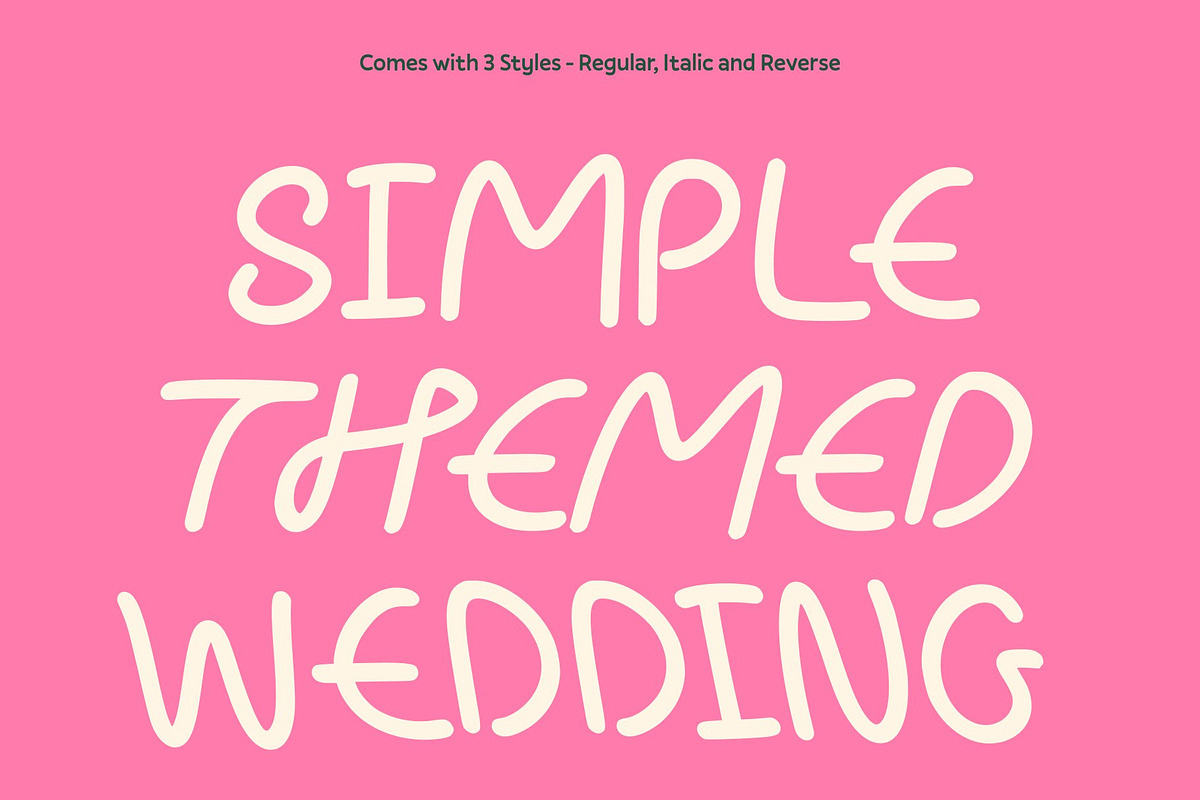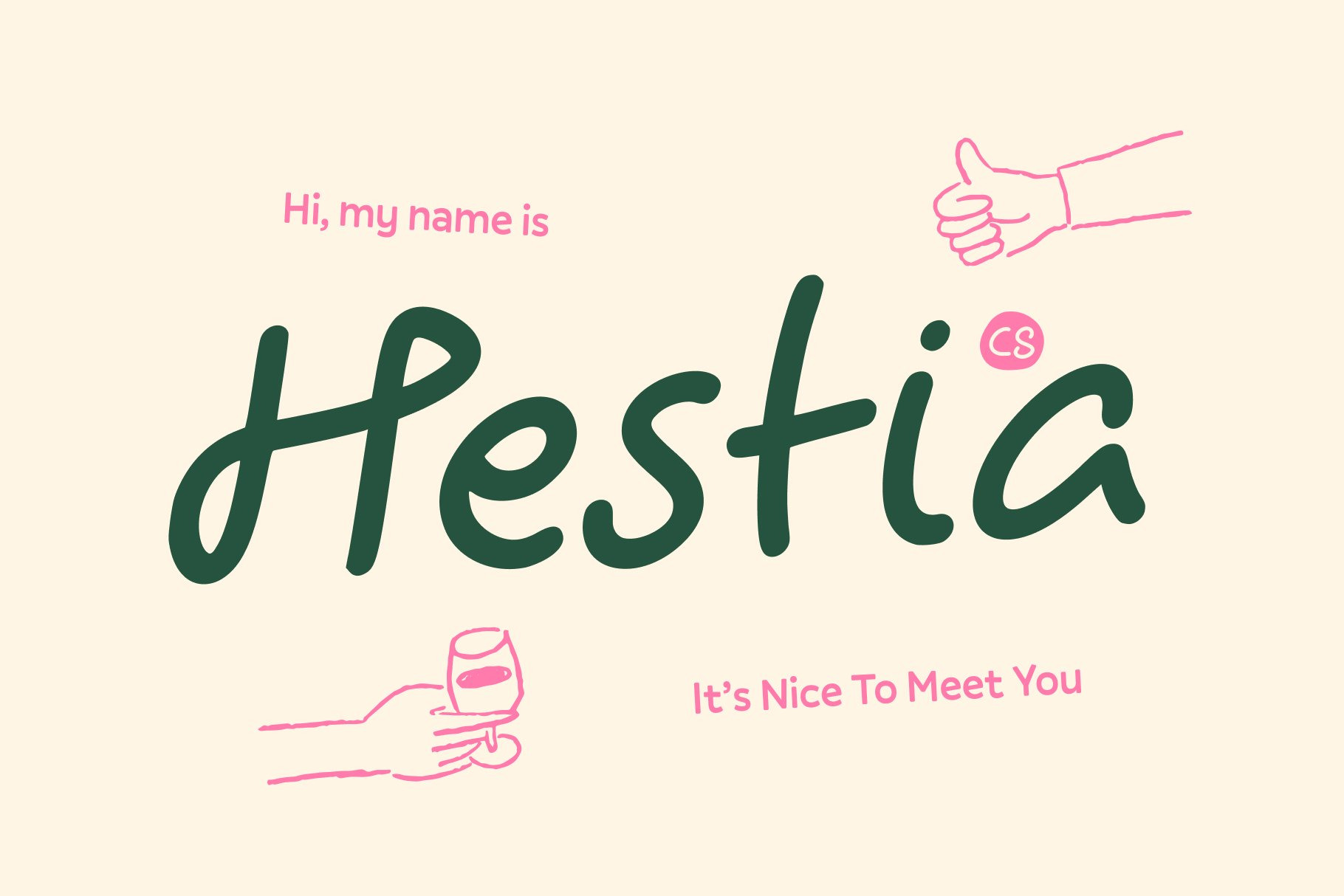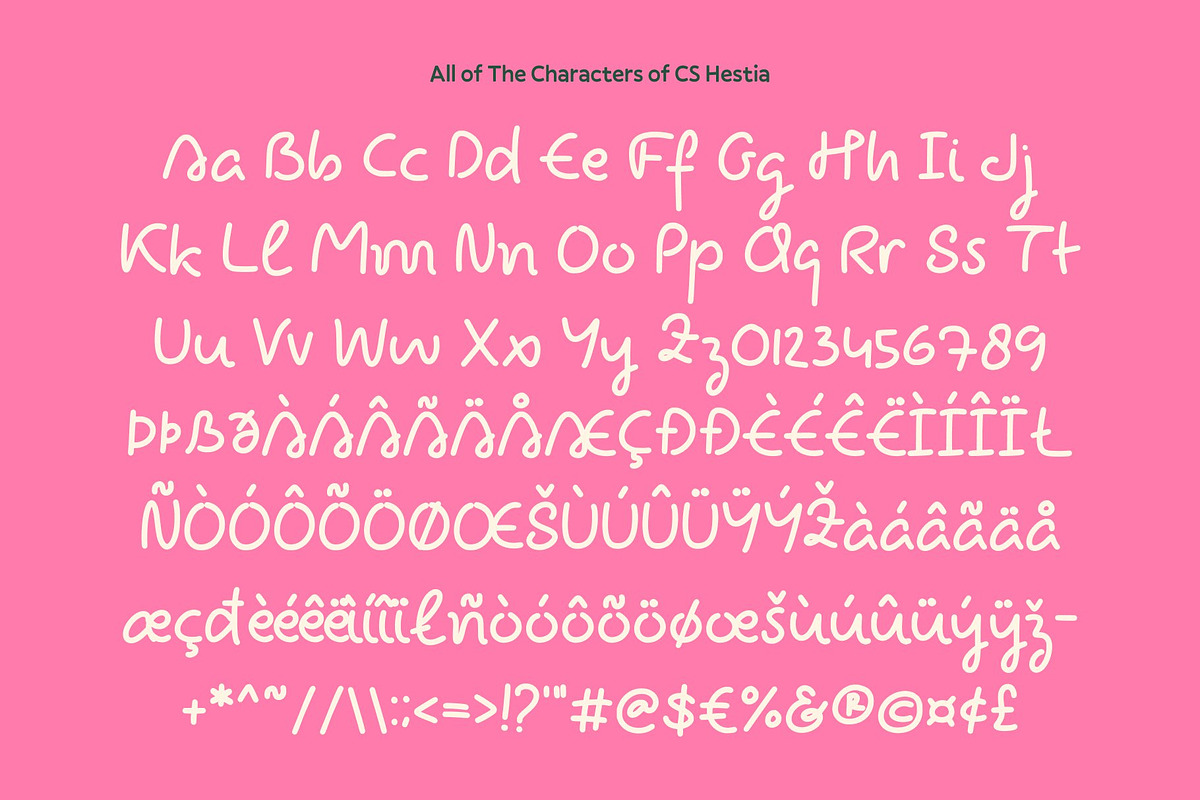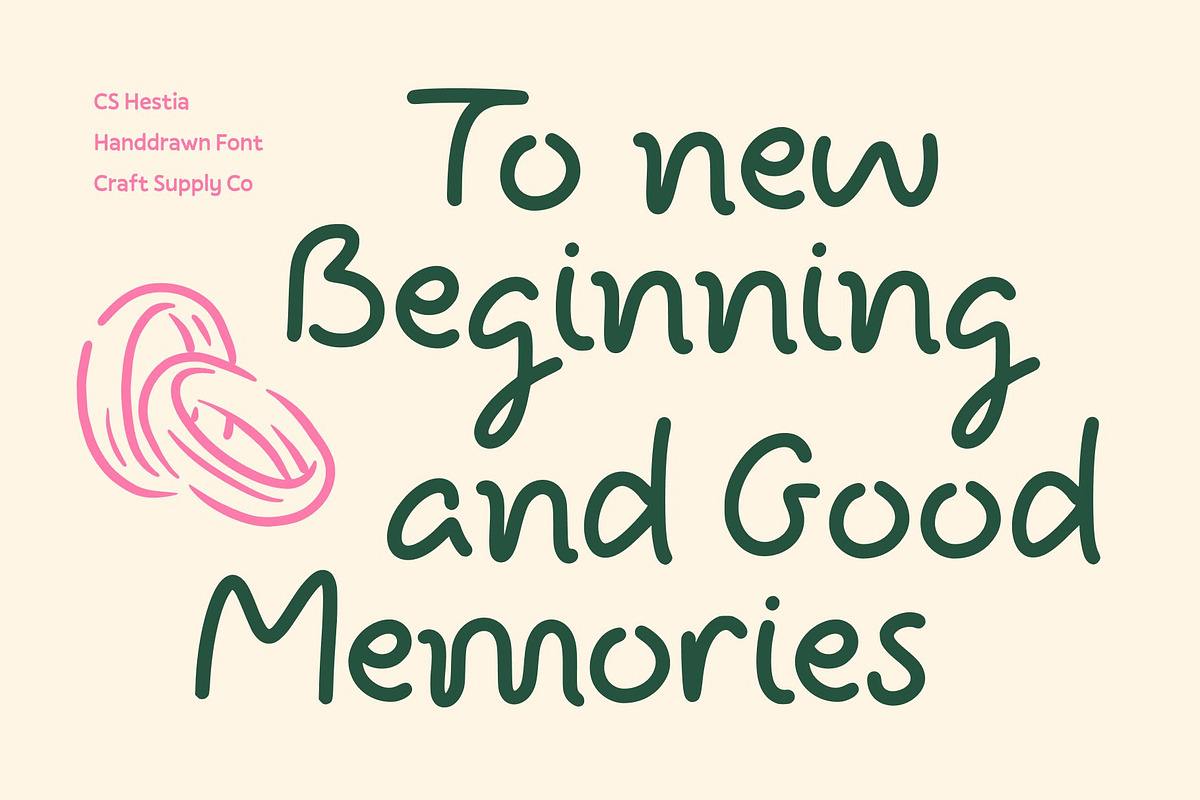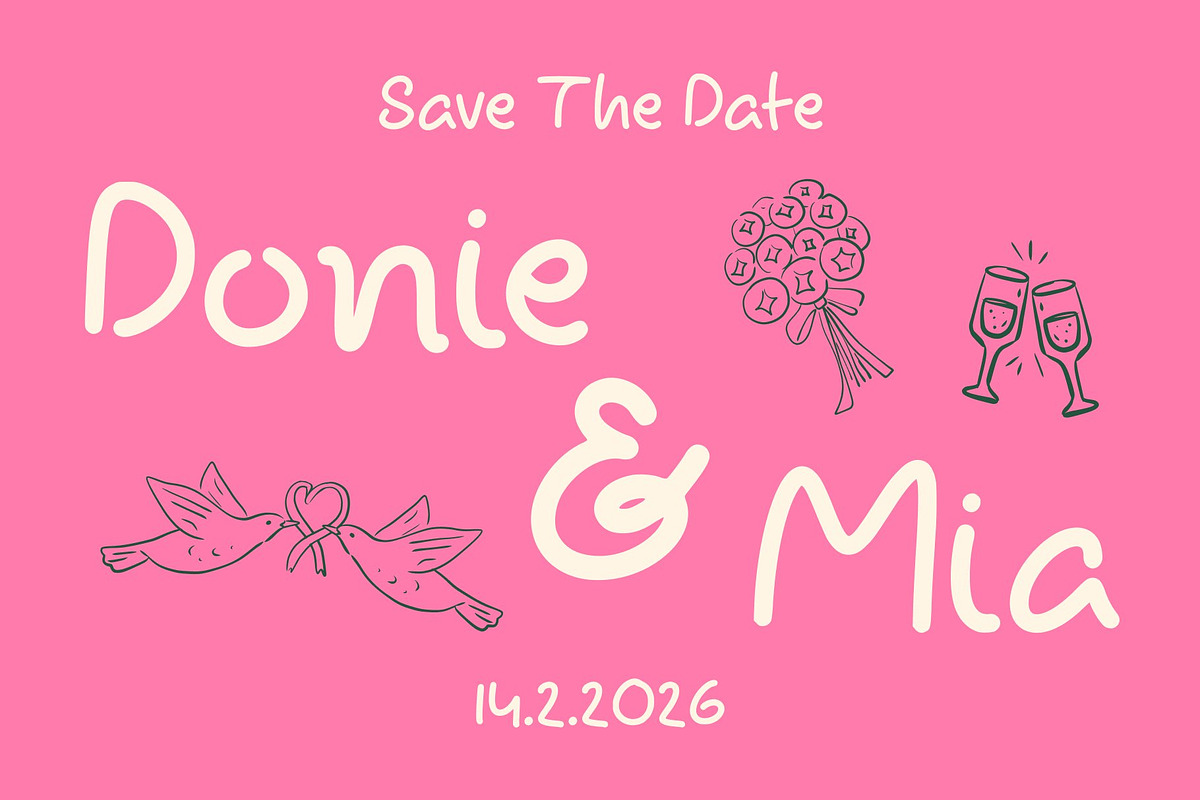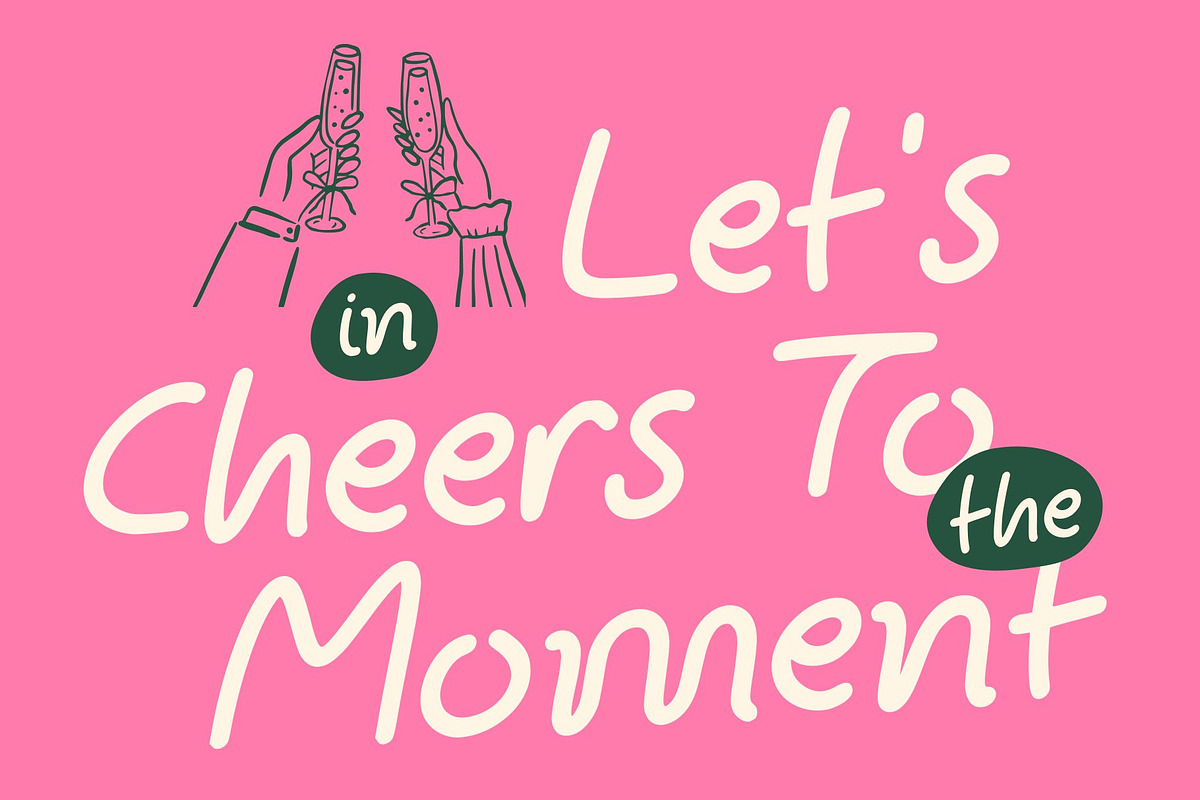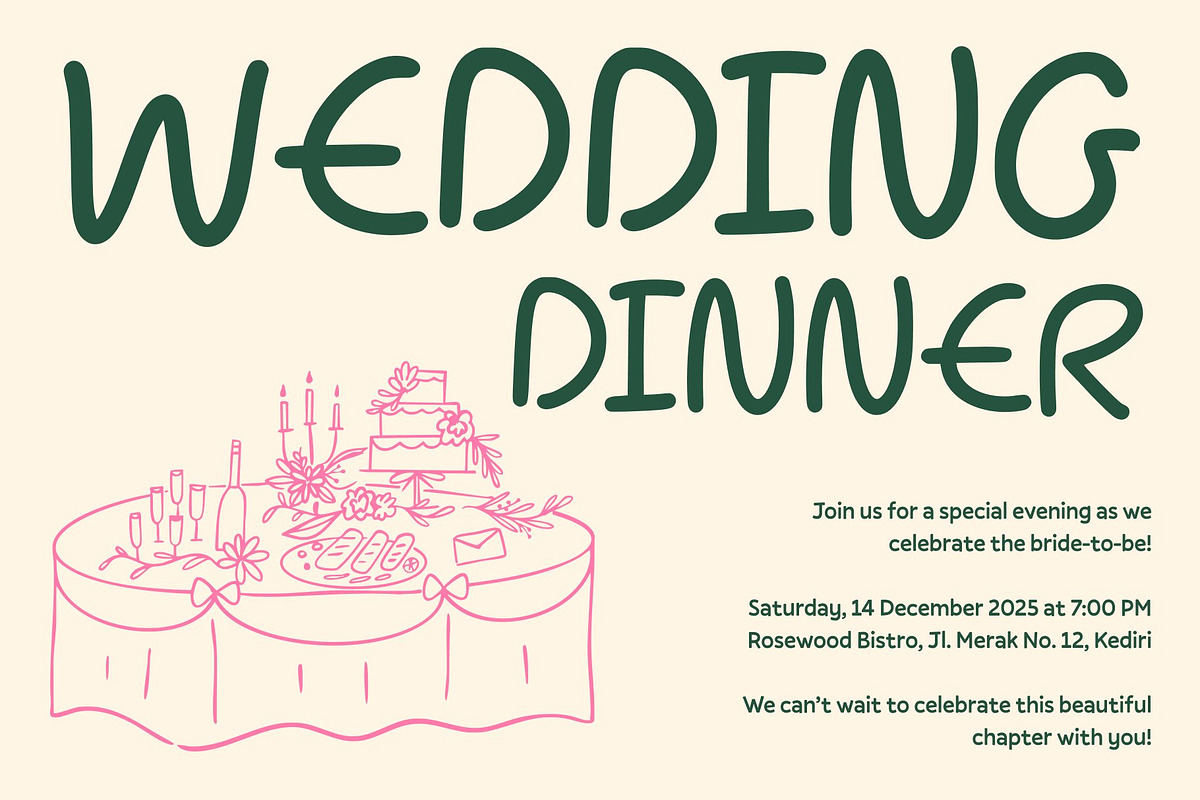
CS Hestia – Fun Handwritten Font
CS Hestia – Fun Handwritten Display with Playful Energy
Energetic Handwritten Style with Friendly Charm This is a fun display font designed to bring lively, playful energy to your designs. Its handwritten, friendly shapes create a cheerful and approachable vibe, while the quirky touches add personality and uniqueness to every letter. This font is perfect for designers who want to inject fun, creativity, and youthful spirit into their projects.
Quirky Shapes for Playful Visual Expression The distinct, slightly irregular forms of give it a charmingly quirky character. Each letter exudes movement and spontaneity, creating a dynamic and engaging visual rhythm. This playful style makes your designs feel approachable, lively, and full of personality, ideal for projects that require warmth and creativity.
Friendly Handwritten Flow for Approachable Designs This font’s handwritten construction ensures every word feels personal and inviting. The soft curves and smooth lines enhance readability while maintaining a joyful and casual aesthetic. This combination of friendliness and energy makes it perfect for fun, expressive layouts that capture attention instantly.
Perfect for Youth Branding, Greeting Cards, and Casual Projects This font excels in youth branding, greeting cards, casual projects, posters, social media content, and playful packaging. Whether you’re designing cheerful headlines, creative logos, or lively event materials, adds a vibrant, friendly, and energetic personality to every project. Its playful, handwritten charm ensures your designs feel joyful, dynamic, and full of character.
- CS Hestia Regular
- CS Hestia Italic
- CS Hestia Reverse Italic